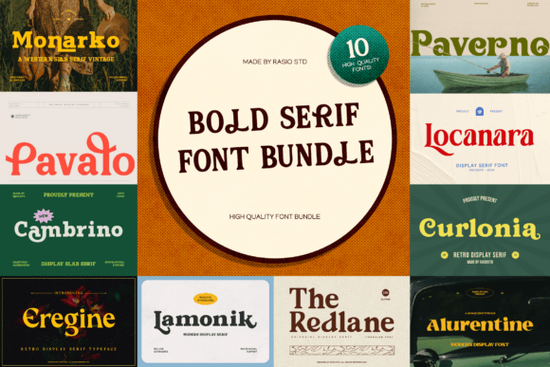
If you're looking for a bold, expressive serif font that makes a statement without sacrificing readability, the Bold Serif Bundle Font is a solid choice for designers and creators. It’s built for impact perfect when you need headlines that grab attention on posters, packaging, branding materials, or editorial layouts. The bundle brings together several strong serif typefaces with confident letterforms, distinctive shapes, and modern flair while keeping classic serif roots intact.
What makes this font bundle stand out?
The Bold Serif Bundle isn’t just about weight it’s about personality. Each font in the collection has unique details: sharp serifs, balanced spacing, and strong proportions that work well at large sizes. Whether you’re designing a retro-inspired poster or a premium product label, these fonts deliver clarity and character. They’re not meant to be used for long blocks of text, but as display type, they shine.
You’ll find the right tone for different styles some fonts feel more vintage, others lean into contemporary minimalism with bold presence. This versatility means you can use the same bundle across multiple projects without repeating the same look.
Best uses for the Bold Serif Bundle Font
Here’s where this bundle really comes into its own:
- Posters and event flyers – Make your headline impossible to ignore.
- Branding and logos – Build a memorable identity with strong visual language.
- Packaging design – Add authority and style to product labels.
- Editorial layouts – Use for section headers or feature titles in magazines or zines.
- Print-on-demand products – Ideal for t-shirts, mugs, and wall art with bold messages.
Because each font is designed for display use, they hold up well even at larger sizes. You won’t lose legibility or detail, which is important whether you’re printing or sharing online.
How does it compare to other serif fonts?
While many serif fonts follow traditional forms, the Bold Serif Bundle adds a modern edge. Compared to something like Margiona, which leans more elegant and refined, this bundle goes for confidence and punch. If you prefer softer curves and delicate details, you might enjoy Lover Roses instead. But if you want power and presence, this is a better fit.
For those who love floral elegance with a serif base, Acreme Bloom offers a softer touch. And if you're drawn to mountainous, rugged vibes, Mount Sagilite brings a different kind of strength more textured and natural. Still, the Bold Serif Bundle strikes a balance between boldness and refinement, making it a reliable go-to.
Final thoughts
If you’ve been searching for a serif font that combines strength, style, and flexibility, the Bold Serif Bundle Font delivers. It’s not flashy for flashiness’ sake it’s thoughtfully crafted for real design work. Whether you're building a brand, launching a product line, or creating artwork for fun, this bundle gives you a powerful tool that’s easy to use and hard to overlook.